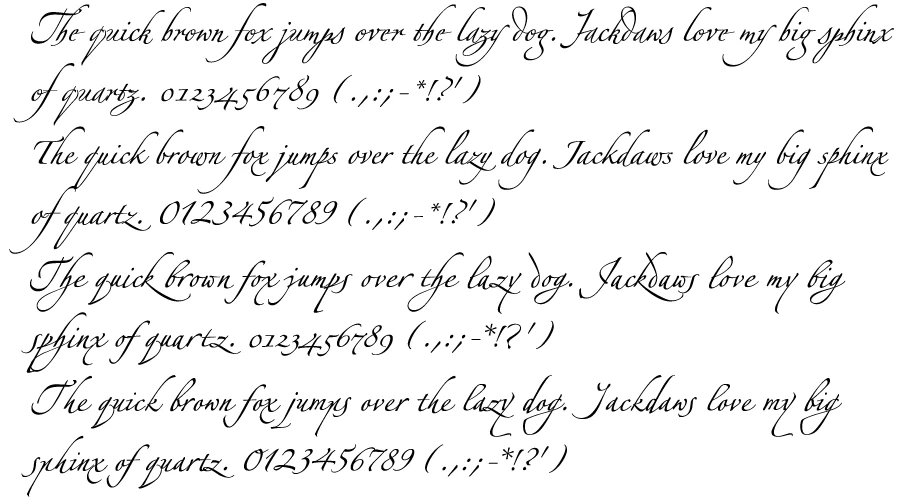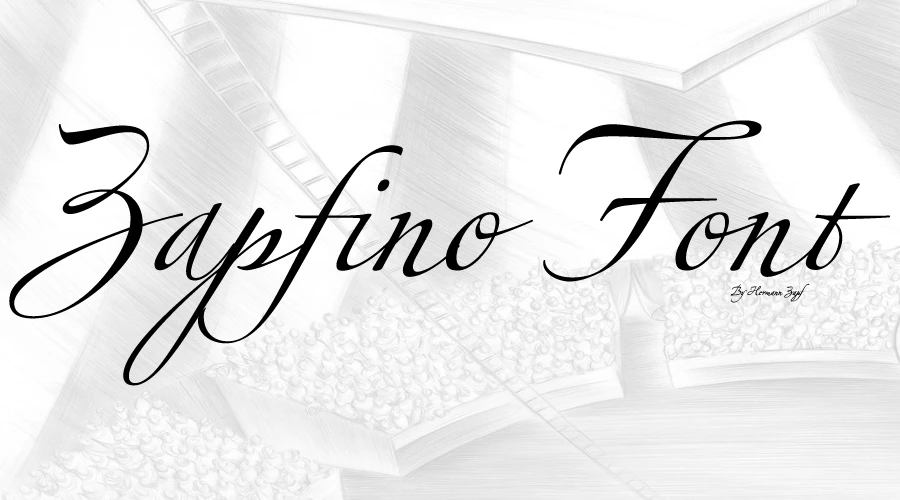
Zapfino is a Script Calligraphic typeface font. In 1998 Hermann Zapf designed this font and make it publish to Linotype. For its advanced typographic features, Apple Inc. includes Zapfino in macOS and iOS. The biggest advantage of using Zapfino font family is, It will make your text little bit italic and shiny.
In 2003, Hermann Zapf reworked on it and creat Zapfino Extra with Akira Kobayashi. It is a large expansion of the Zapfino family. Zapfino extra has 12 styles. There are also two more versions {Zapfino Extra X (2003) and Zapfino Arabic (2014–2015)} of Zapfino licensed under Linotype along with Zapfino Extra. “Click Here” to know more about the Zapfino family group.
Zapfino Font View
| Style | Script, Calligraphic |
| Author | Hermann Zapf |
Zapfino Extra Font Family
- Zapfino® Extra Std One
- Zapfino® Extra Pro Regular
- Zapfino® Extra Std Two
- Zapfino® Extra Std Three
- Zapfino® Extra Std Four
- Zapfino® Extra Std Alternate
- Zapfino® Extra Std SmallCaps
- Zapfino® Extra Std Ligatures
- Zapfino® Extra Std Forte One
- Zapfino® Extra Pro Forte
- Zapfino® Extra Std Forte Alternate
- Zapfino® Extra Ornaments
What type of font is Zapfino?
Ans: Zapfino is a Script Calligraphic typeface font designed by Hermann Zapf.